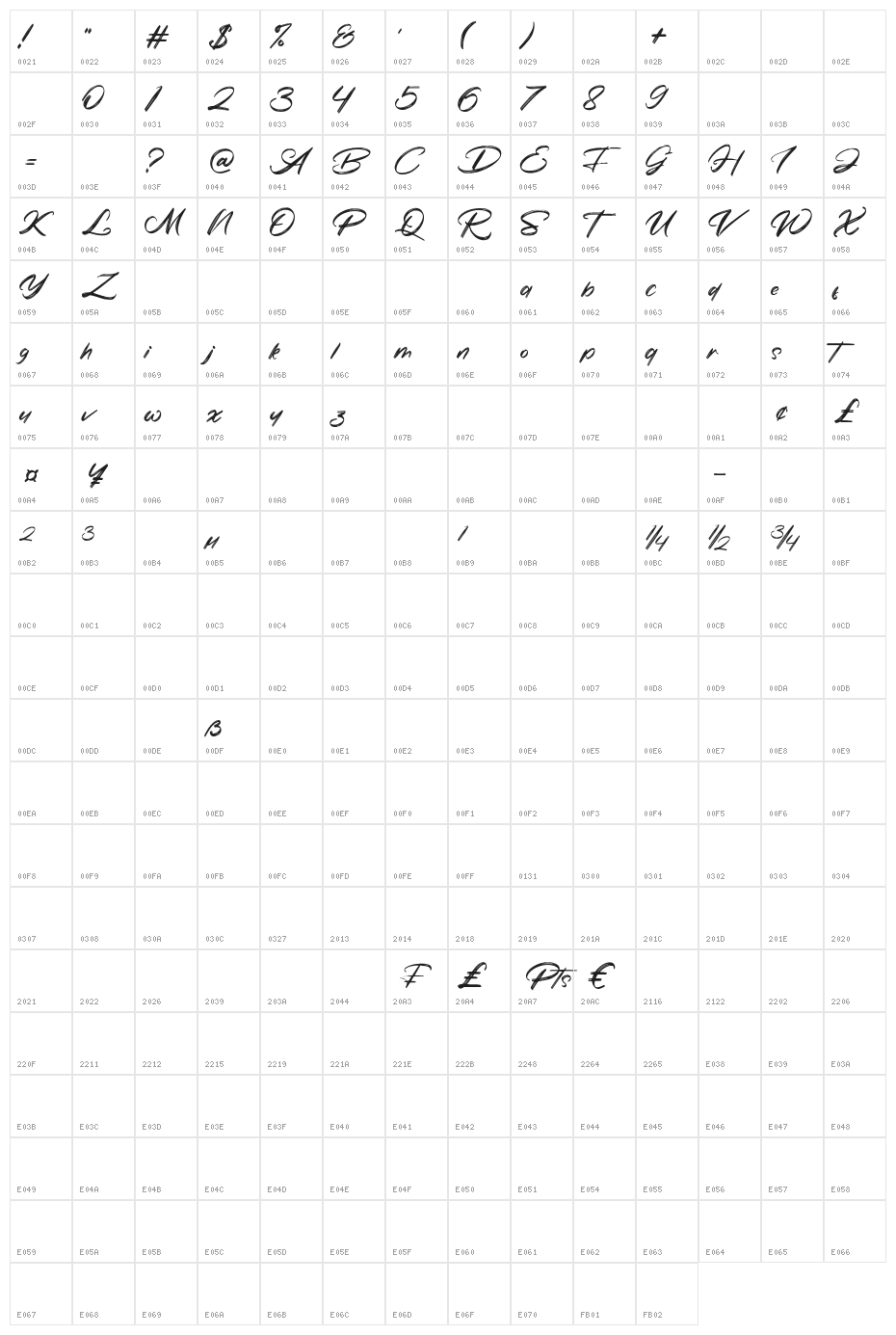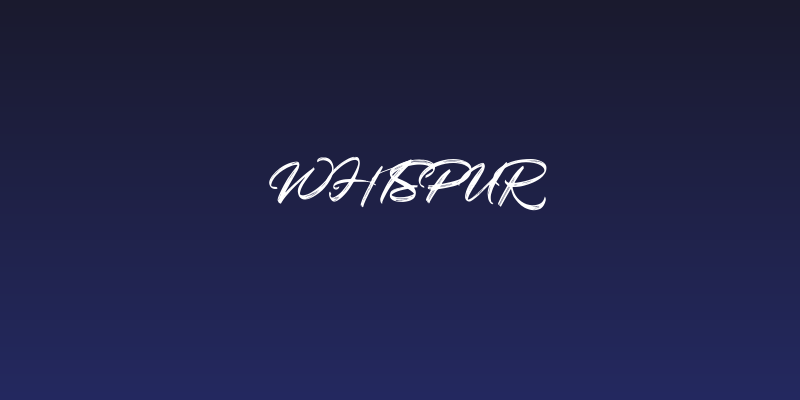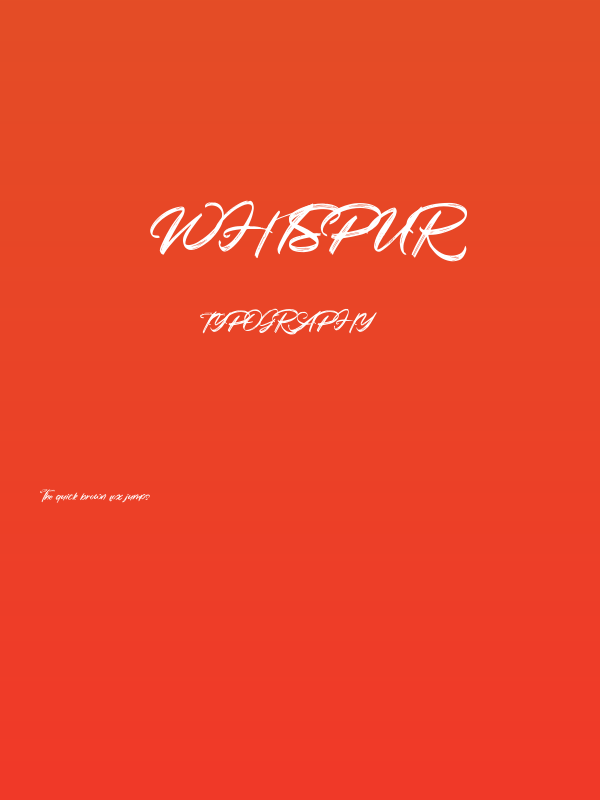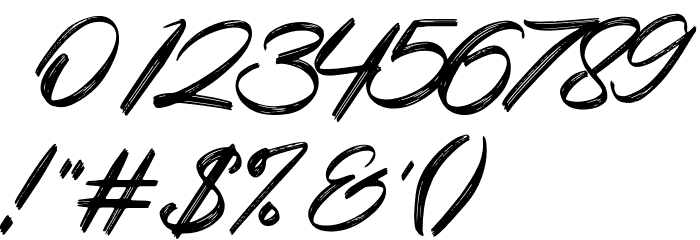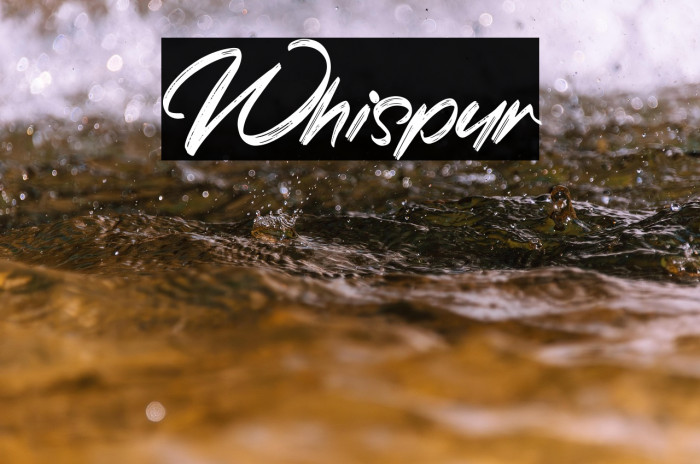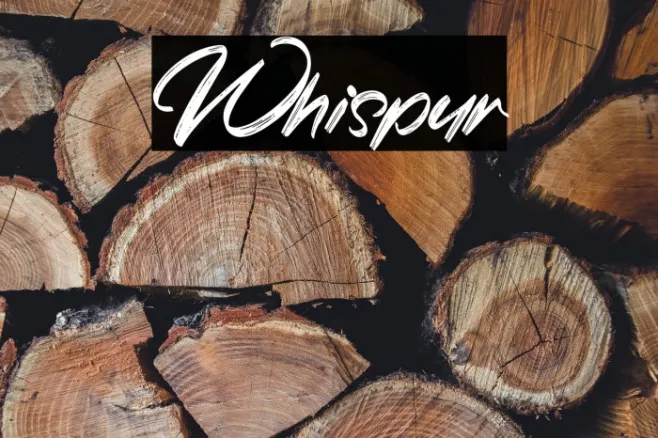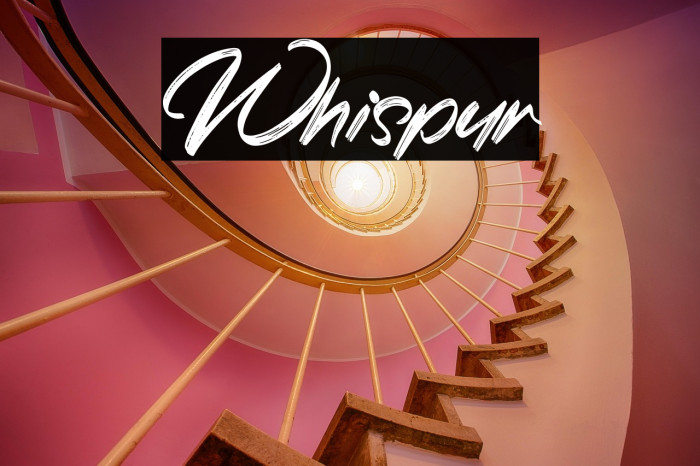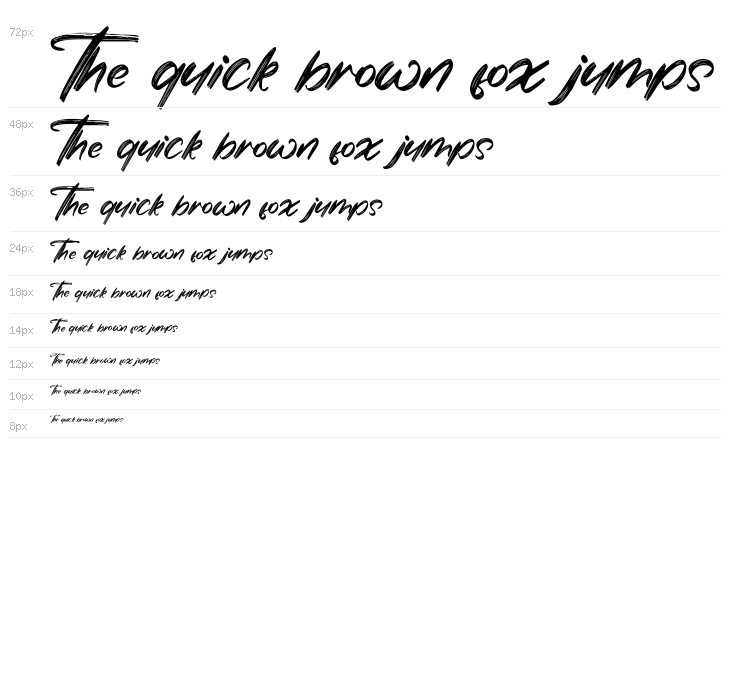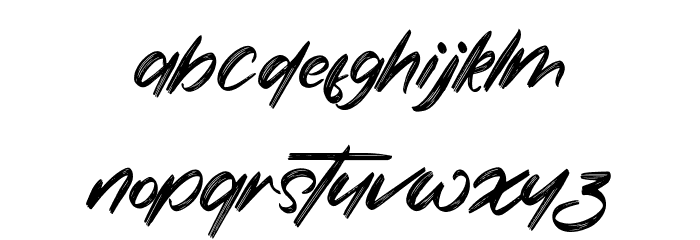
Whispur Font
Whispur Description
This font features a dynamic and energetic script style, characterized by its bold, flowing strokes and a sense of movement. The letters are interconnected with a natural, handwritten feel, giving it a personal and expressive touch. The uppercase letters are particularly striking, with dramatic flourishes and loops that add to its decorative appeal. The lowercase letters maintain a consistent style, complementing the uppercase with their fluidity. Numbers and special characters are equally stylized, ensuring a cohesive look across all elements. This font is perfect for projects that require a touch of elegance and personality, such as invitations, branding, and artistic designs.
| Use Case | Logos, Headlines, Artistic designs |
| Proposed Projects | Ideal for invitations, branding, artistic designs, and any project needing an elegant, personal touch. |